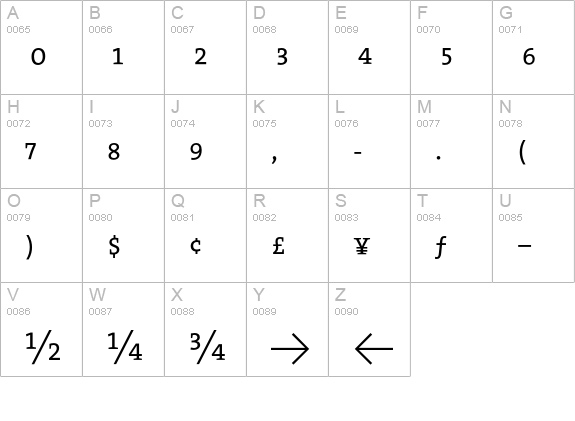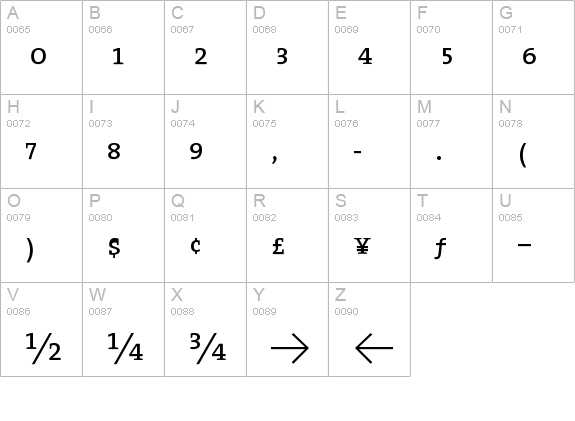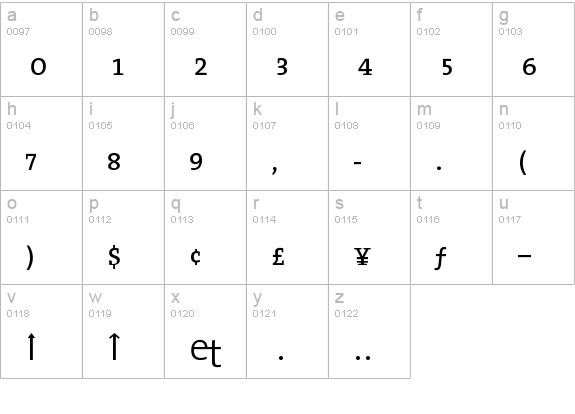
TheSerif Light Expert Font Details
TheSerif Light Expert is a refined, elegant variant in the TheSerif typeface family \xE2\x80\x94 well suited to elegant body text, refined sub-headings, and luxury branding.
TheSerif Light Expert font is a sophisticated and elegant typeface that exudes a sense of professionalism and refinement. Its clean and crisp lines make it perfect for a wide range of design applications, from branding and advertising to editorial layouts and packaging. TheSerif Light Expert font offers a unique combination of modernity and classicism, making it a versatile choice for both contemporary and traditional designs. Its carefully crafted letterforms display a balanced and harmonious proportion, resulting in a visually pleasing and highly readable text. This font is designed with meticulous attention to detail, ensuring that each character is perfectly balanced and proportioned. TheSerif Light Expert font features a slightly condensed structure, allowing for efficient use of space without sacrificing legibility. One of the most remarkable features of TheSerif Light Expert font is its versatility. It can be used effectively in both headlines and body text, creating a cohesive and visually appealing design. Whether you are designing a logo, a magazine layout, or a website, this font will bring a touch of sophistication and professionalism to your project. One of the best aspects of TheSerif Light Expert font is that it is free. Yes, you read it right! This incredible typeface is freely available to download at FontsMarket.com. You can now enhance your designs without any financial burden, making it an excellent choice for both professional designers and enthusiasts alike. So why wait? Embrace the elegance and versatility of TheSerif Light Expert font and take your design projects to the next level. Download it for free at FontsMarket.com and discover the endless creative possibilities it offers.